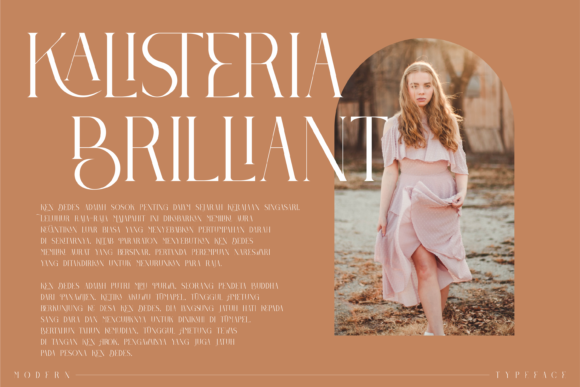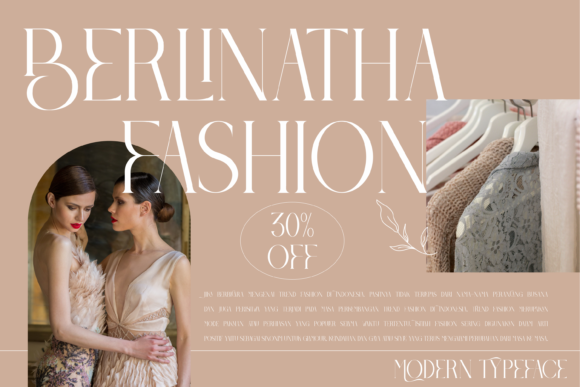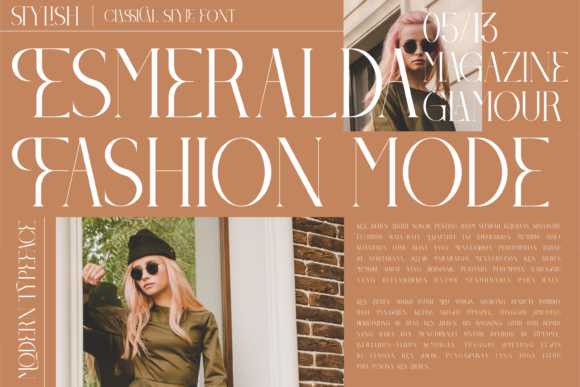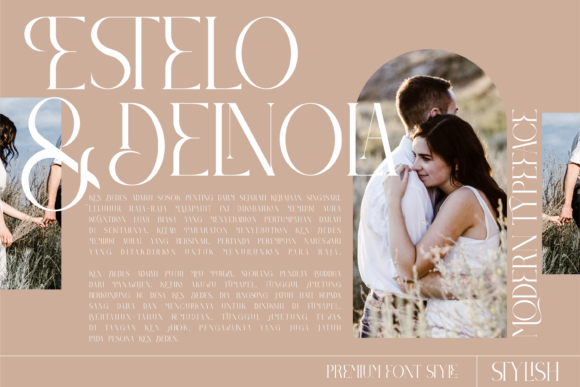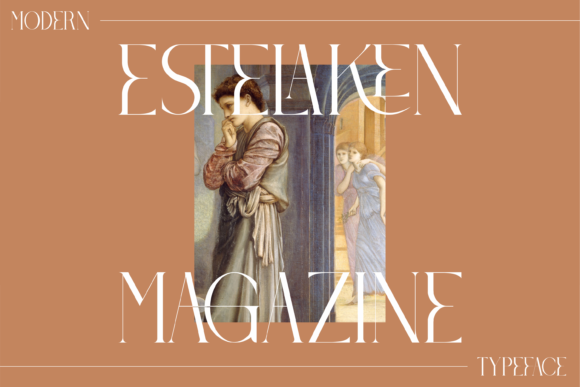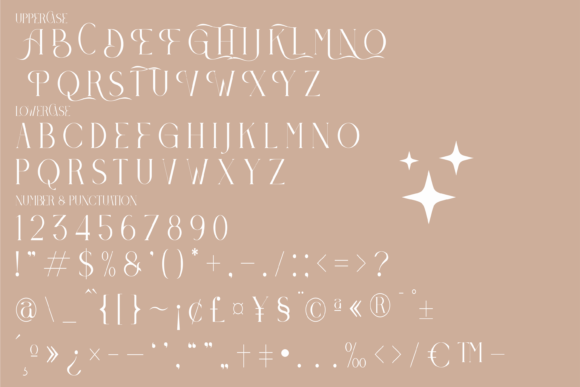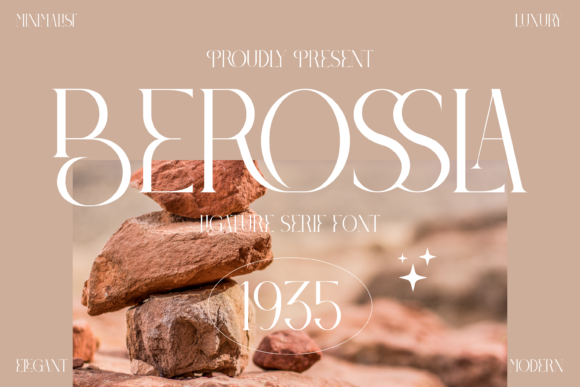
The Elegance of Berossla Font: A Designer’s Delight
I’ll never forget the moment I stumbled upon the Berossla font while working on a luxury branding project for a high-end jewelry client. I had been searching for the perfect font to convey sophistication and elegance, but everything I found seemed either too bold or too bland. That’s when I discovered Berossla – a thin lettered and elegant serif font that instantly elevated my design game. In this article, I’ll share my experience with Berossla, its features, and how to make the most of it in your design projects.
An Honest Review of Berossla Font
What I Love About Berossla ✨
- 💫 Its elegant and refined aesthetic, perfect for luxury branding and high-end designs
- ✅ PUA encoded for easy access to glyphs and ligatures
- 🔥 Highly versatile and adaptable to various design projects, from invitations to packaging
- 👍 Exceptional readability, even at small font sizes
While Berossla is an outstanding font, there are a few minor considerations to keep in mind:
- 🤔 Limited availability of bold or heavy weights, which might not be ideal for designs requiring a stronger font presence
- ⚠️ Some users might find the font’s thin strokes challenging to work with on certain backgrounds or in low-resolution applications
The Story Behind Berossla Font
Berossla’s creator drew inspiration from the art of calligraphy and the elegance of classic serif fonts. The goal was to craft a font that exudes luxury, sophistication, and refinement, while maintaining readability and versatility. The result is a font that has captured the hearts of designers and crafters worldwide.
PUA (Private Use Area) encoding allows font creators to include additional glyphs and characters that aren’t part of the standard Unicode range. For Berossla users, this means easy access to a wide range of glyphs and ligatures, making it easier to create beautiful and unique designs.
While Berossla is an elegant font, its thin strokes might not be ideal for body text, especially at small font sizes. However, it can still be used for long-form content, depending on the specific design requirements and readability needs.